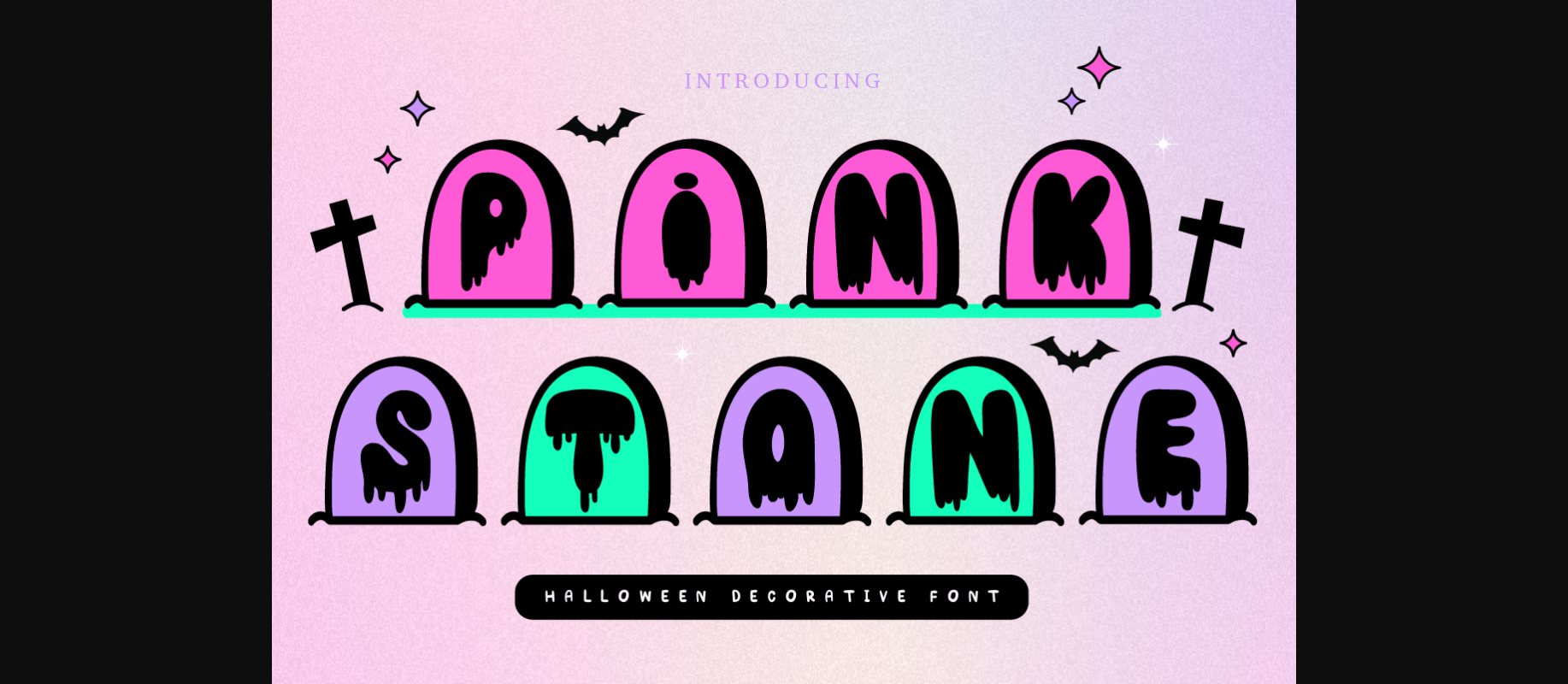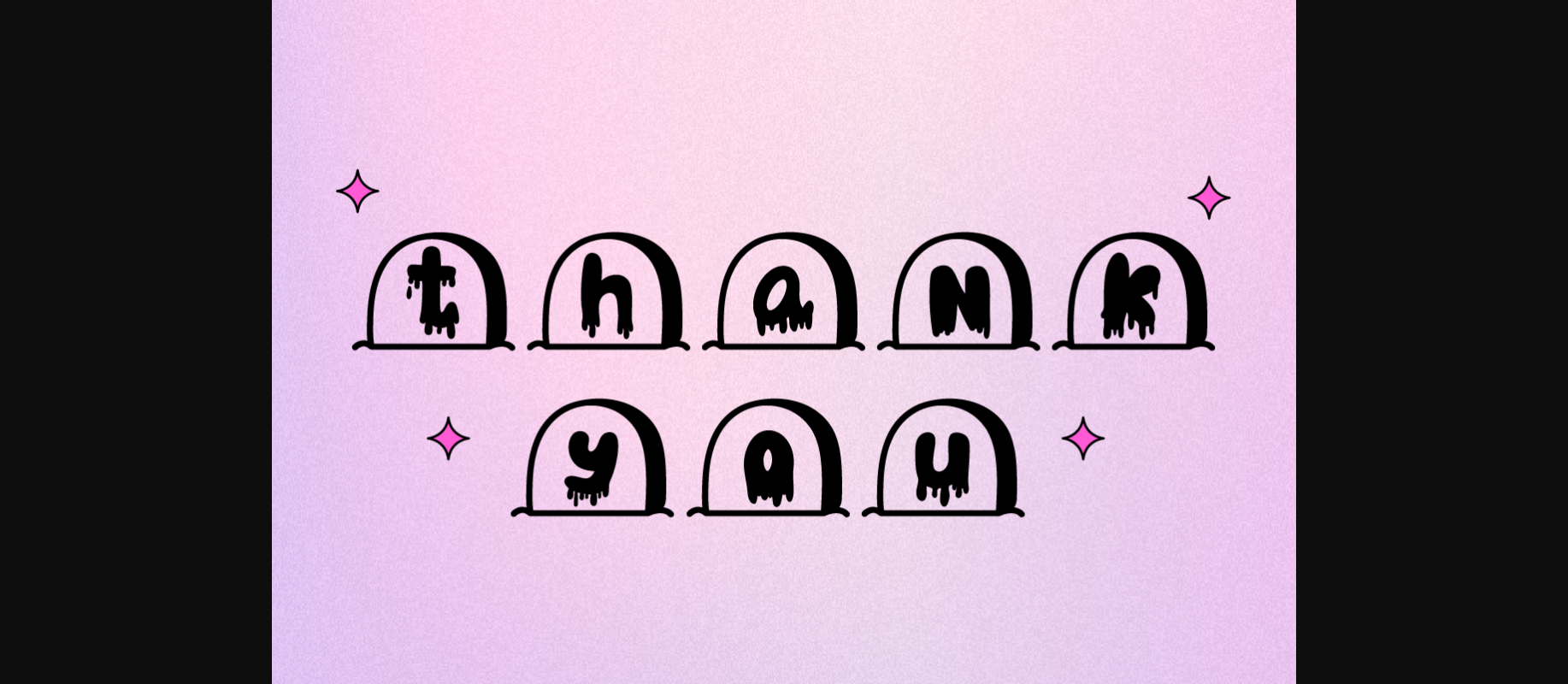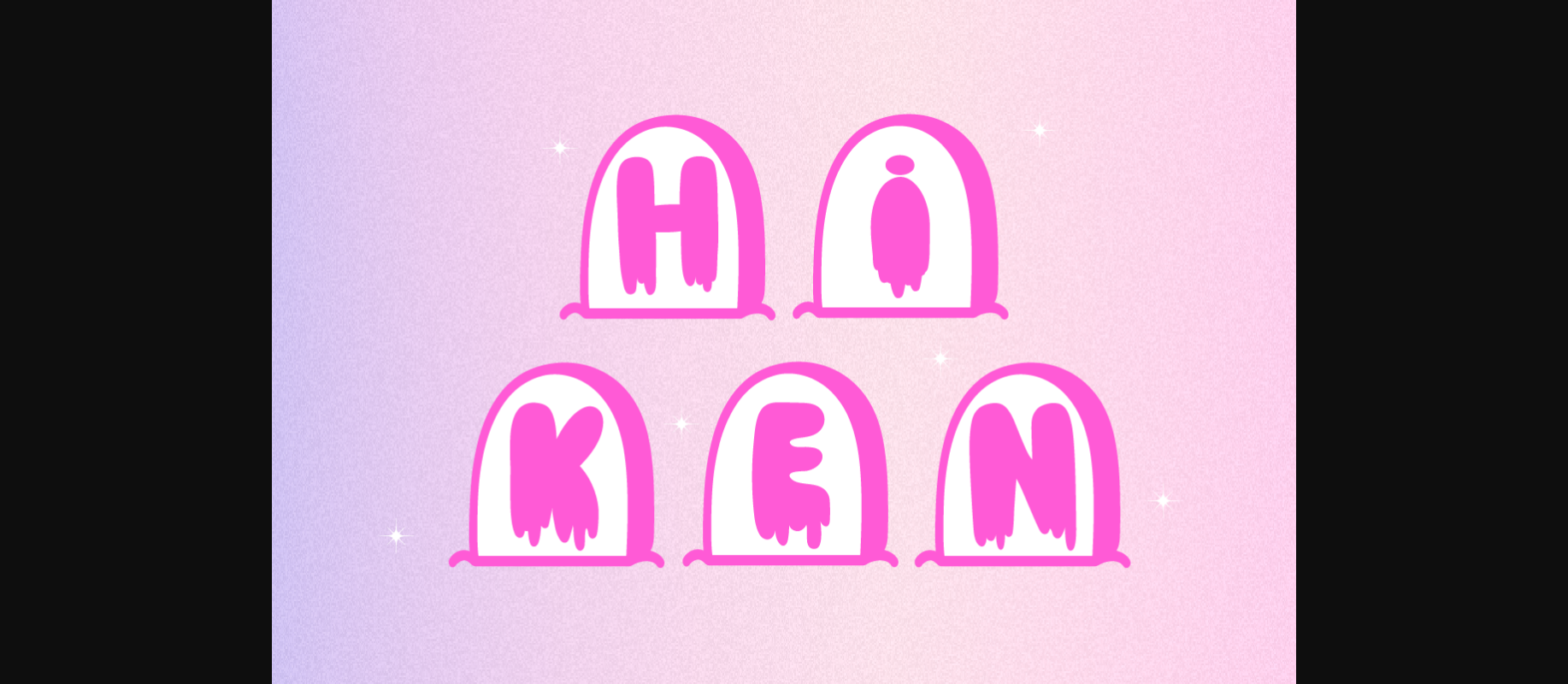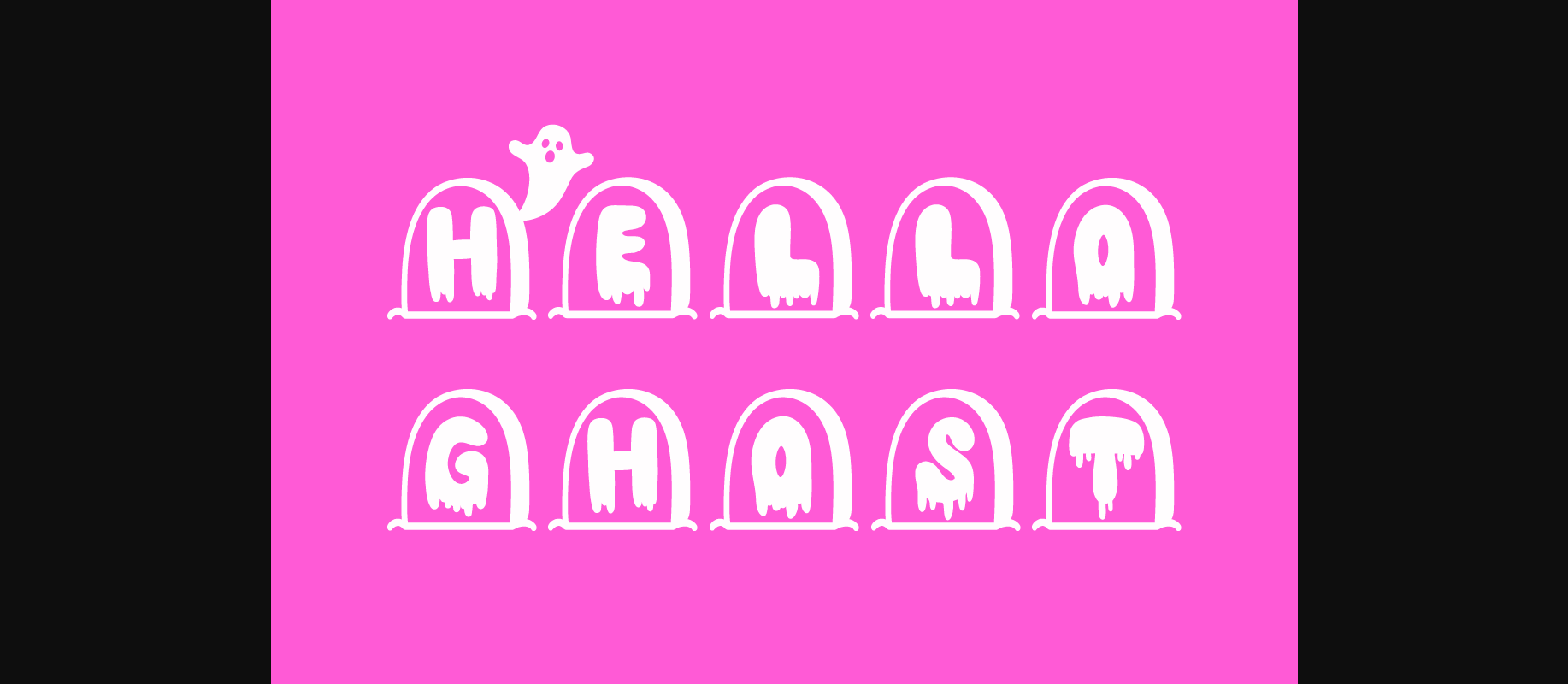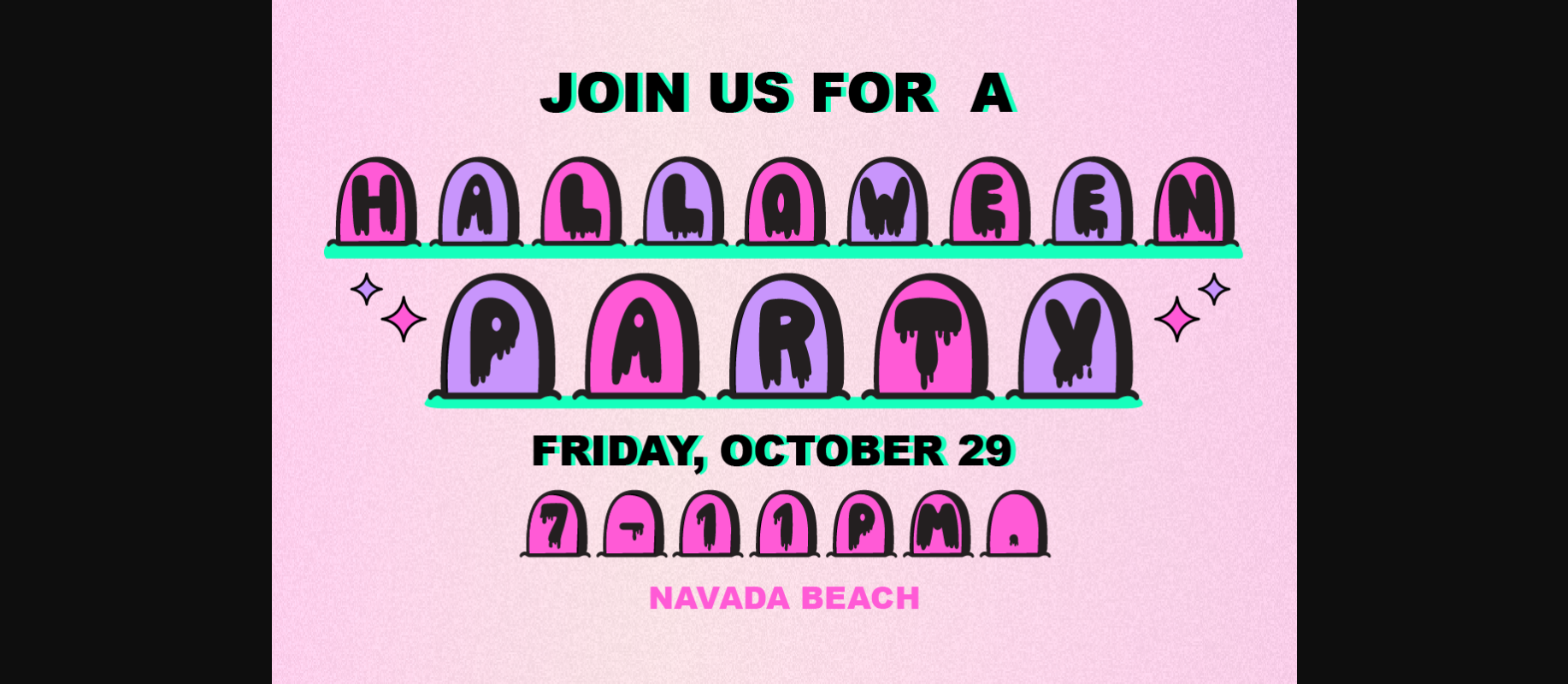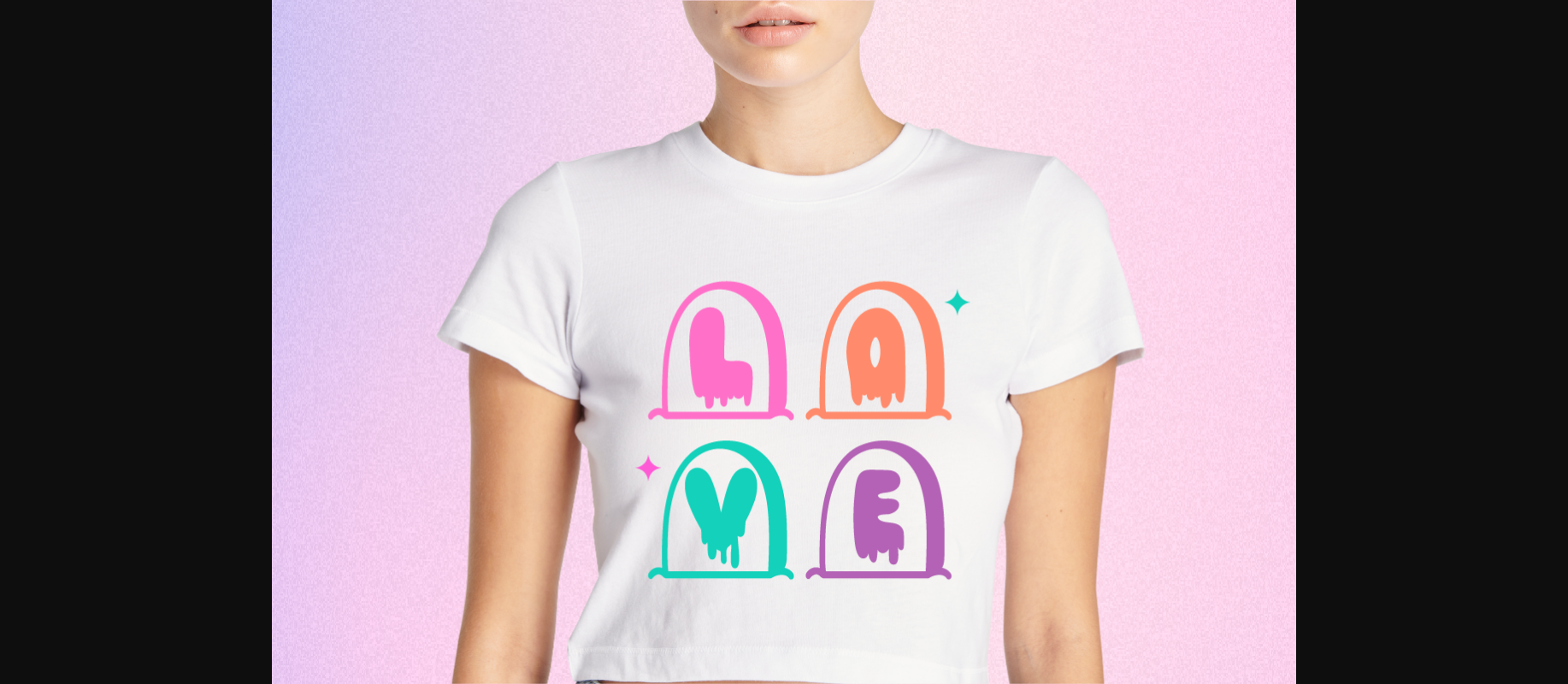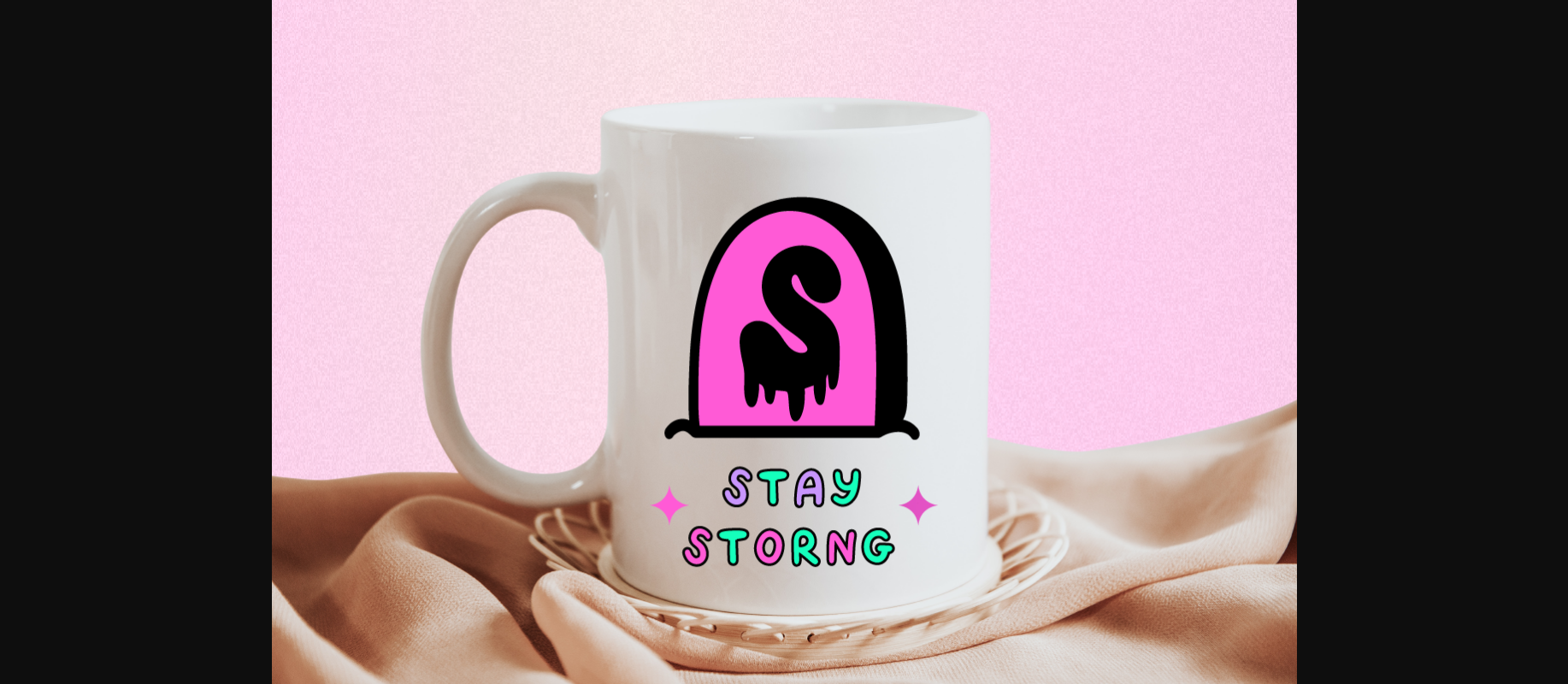
About Pink Stone Font
The Pink Stone Halloween Decorative font offers unparalleled versatility, effortlessly transforming your words into decorations that resonate with the Halloween spirit while adding a playful twist. It creates an enchanting incantation that draws viewers into a world where ghosts, ghouls, and magic are real.